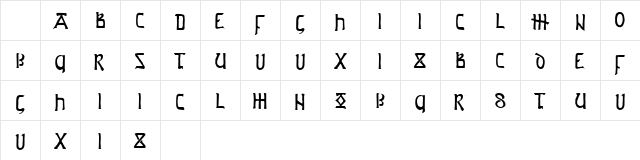
Complete Anglo-Saxon Project Regular glyph index. Displaying only characters natively supported by Anglo-Saxon Project Regular font.
Anglo-Saxon Project is a composed and adaptable typeface that performs quietly and consistently across a wide range of design contexts.